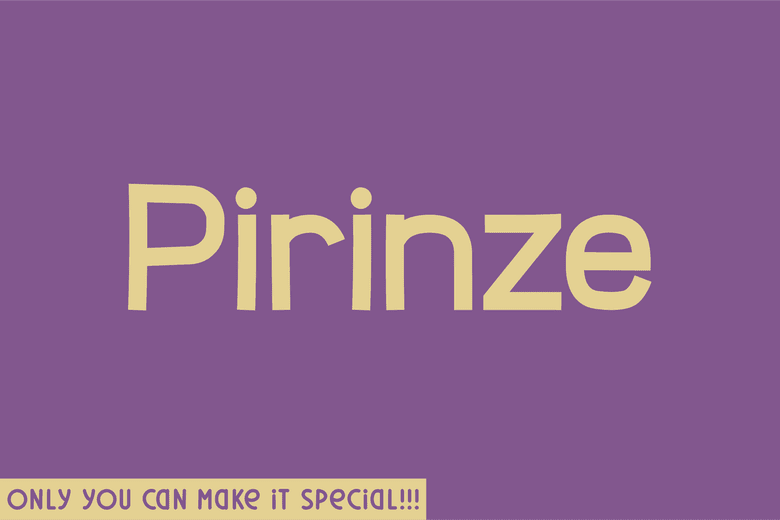
Pirinze is a natural sans serif font without changing a single node in each character’s indentation, this makes this font very interesting and unique. Perfect for quotes, notes, tees, and any product design. I really hope you enjoy it – please do let me know what you think, comments & likes are always hugely welcomed and appreciated.
Pirinze Sans Serif Font